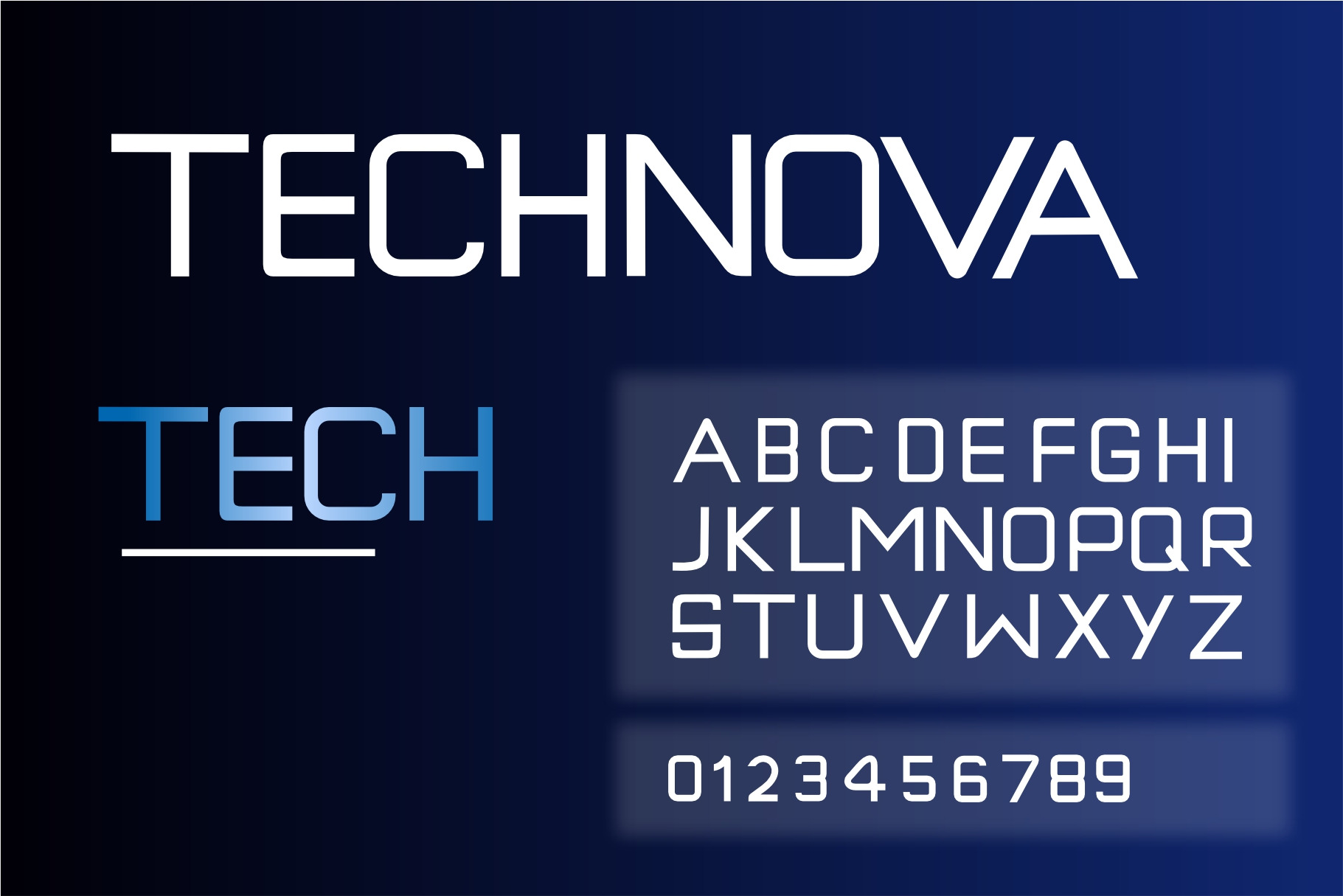
Technova technology alphabet font
Technova Technology Alphabet Font is a sleek and futuristic typeface designed for technology, science, and innovation-themed projects. With its clean geometric shapes and modern aesthetic, this font is perfect for tech branding, digital products, UI/UX design, gaming titles, sci-fi posters, and modern advertising.
Featuring uppercase letters, numbers, and essential punctuation, Technova delivers a high-tech feel that enhances any design with precision and style.
*Technology & startup branding
*Gaming and esports graphics
*Digital interfaces and app design
*Futuristic event promotions